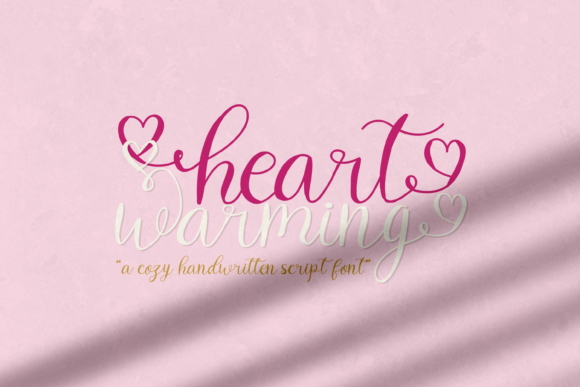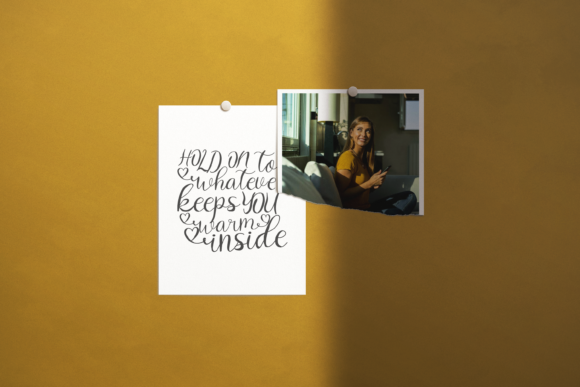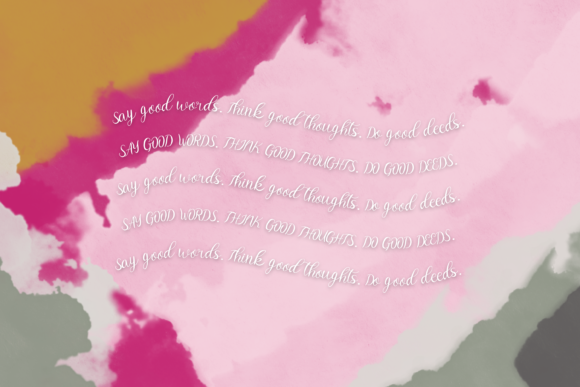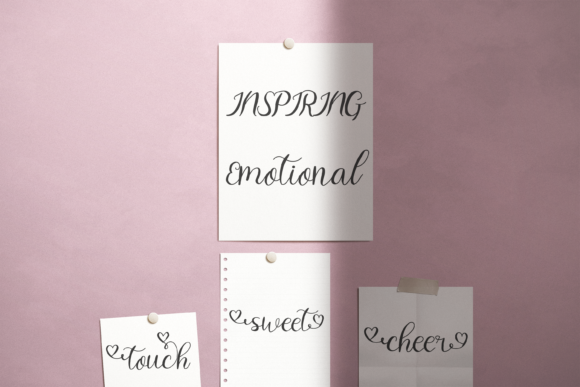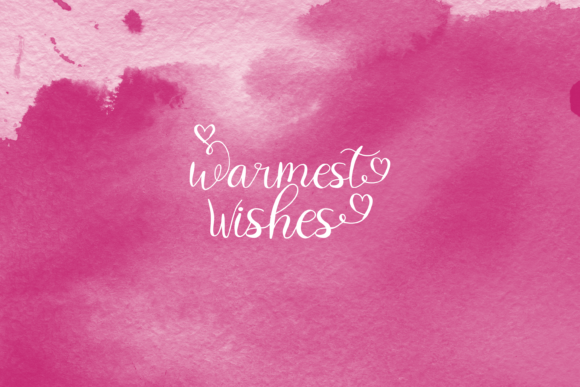
About Heart Warming Font
Heart Warming is a smooth and lovely script font. Get inspired by its incredibly romantic feel and use it for each of your favorite creations. Heart Warming is PUA encoded which means you can access all of the glyphs and swashes with ease!